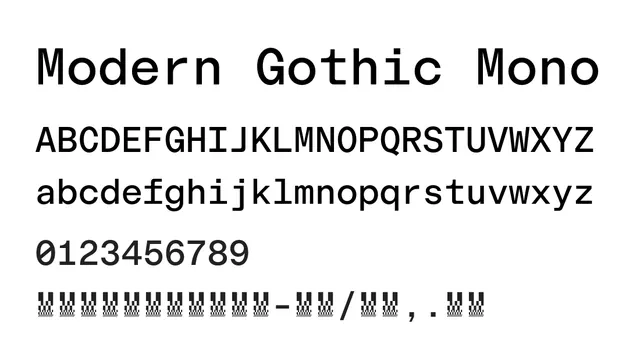
Modern Gothic Mono
A geometric monospace with technical precision and contemporary styling, designed for code and technical content.
Built for code display, command-line interfaces, and technical documentation. Can also serve as a secondary font for UI when technical clarity is desired.
Works with any sans-serif from the Modern Gothic family as body copy, or pair with Editorial serif faces.